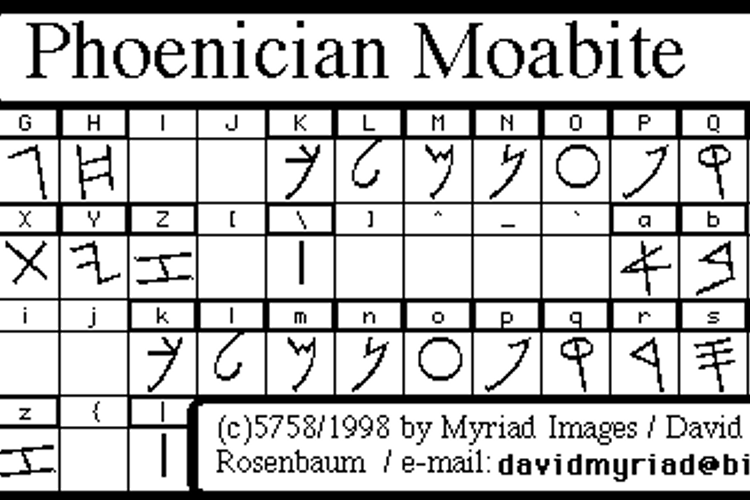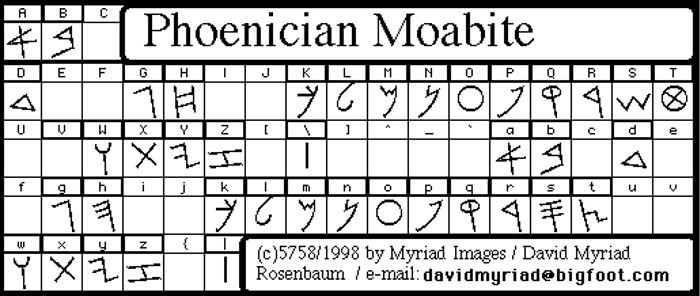
Phoenician Moabite Font
The Phoenician alphabet is the mother of virtually all modern
alphabets, the direct ancestor of our own Roman letters, as well as the
Runic alphabet of the Norse. The first true alphabet, it was
originally developed circa 1,050 B.C.E. in Phoenicia (modern
Lebanon/Israel/Syria) it developed a standardized form that endured
for centuries.
This font is taken from The Moabite Stone, a stela of black basalt,
carved around 840 to 820 B.C.E. (ANET 320-321). The relatively lengthy
inscription was written by King Mesha of Moab. The inscription, and a
picture of the stela can be found most readily in the paperback
The Ancient Near East -- An Anthology of Texts and Pictures, edited by
James B. Pritchard.